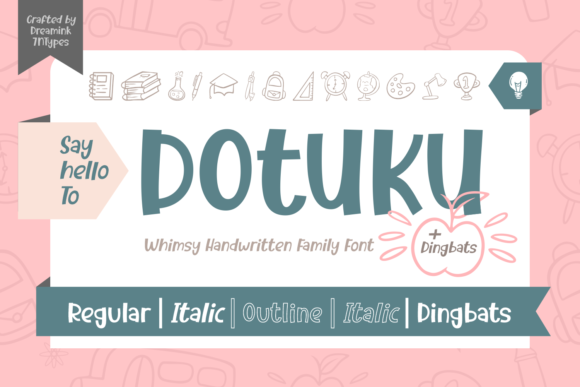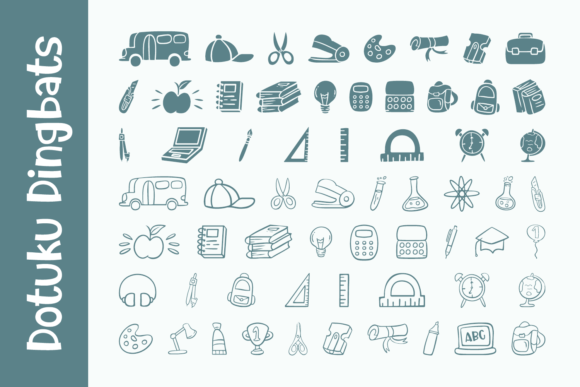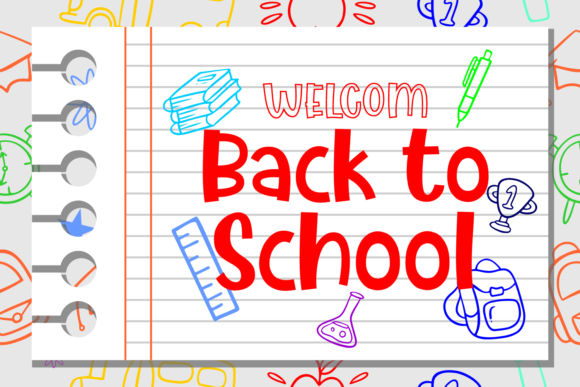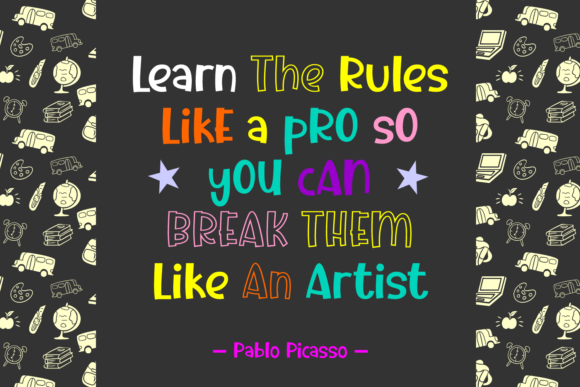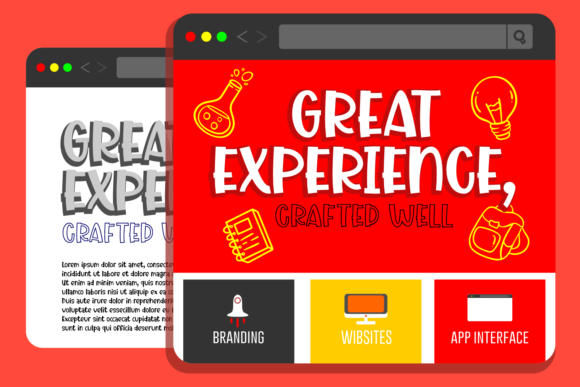
Dotuku Font
About Dotuku Font
Dotuku is inspired by classic typography and brings its own unique style to any design project. This fantastic scrpit font is best suited for headlines of all sizes, as well as for blocks of text that have both maximum and minimum variations. Whether it’s for web, print, moving images or anything else – Dotuku will look spectacular.